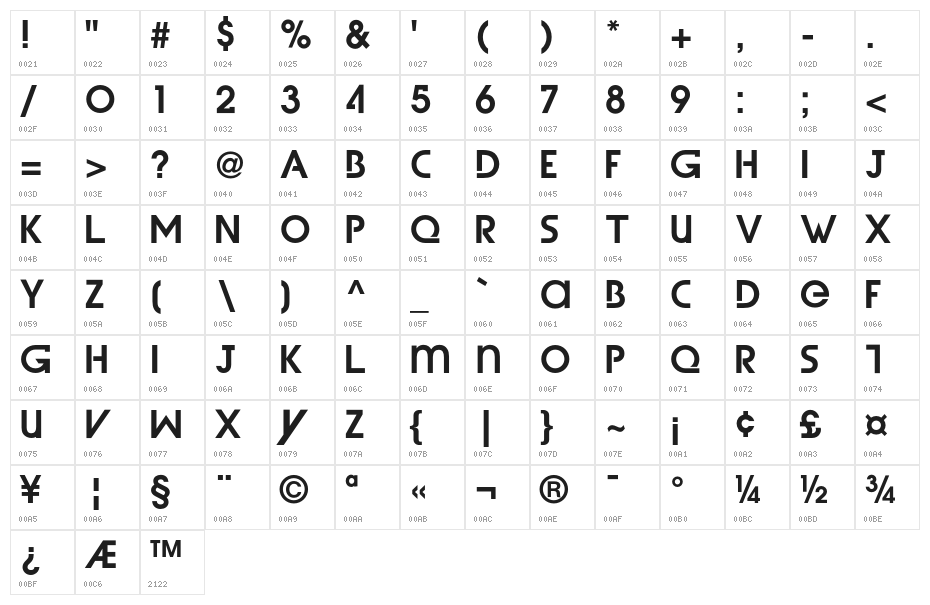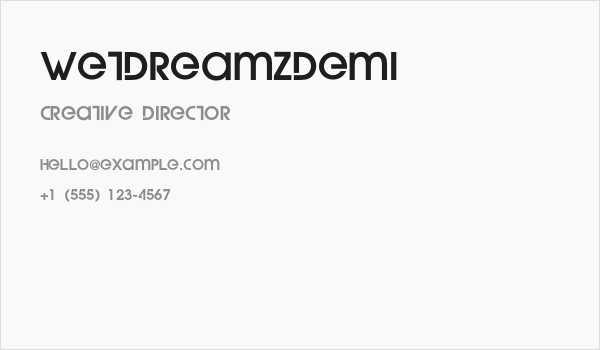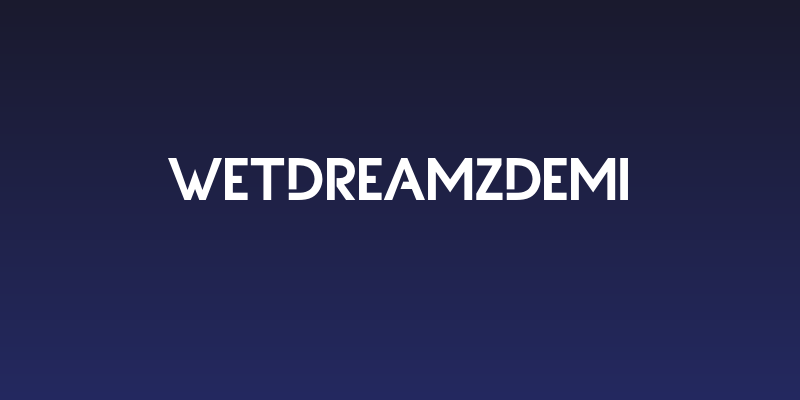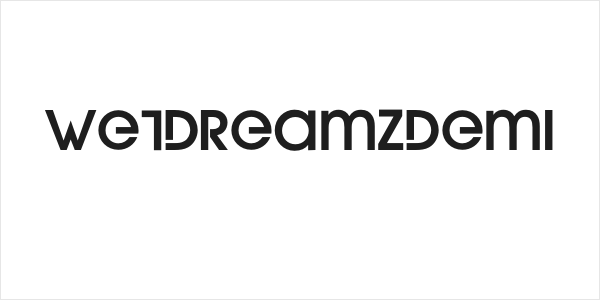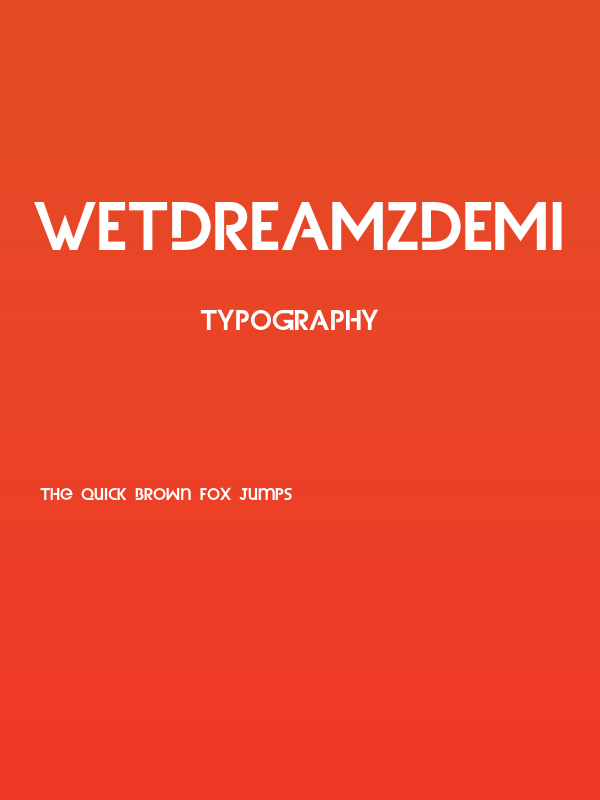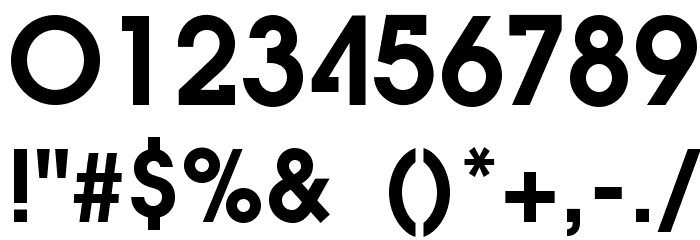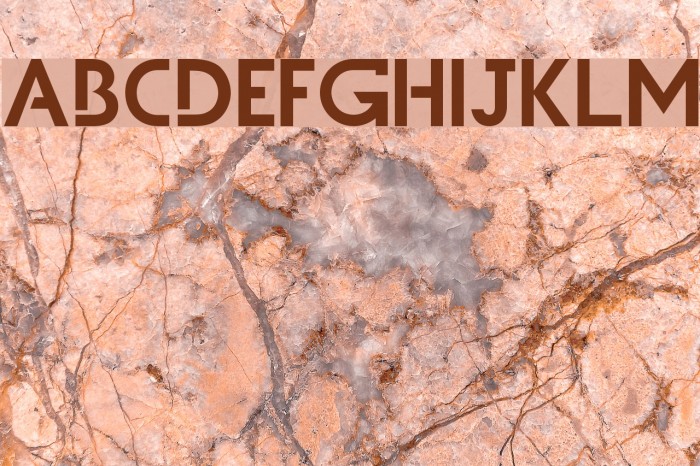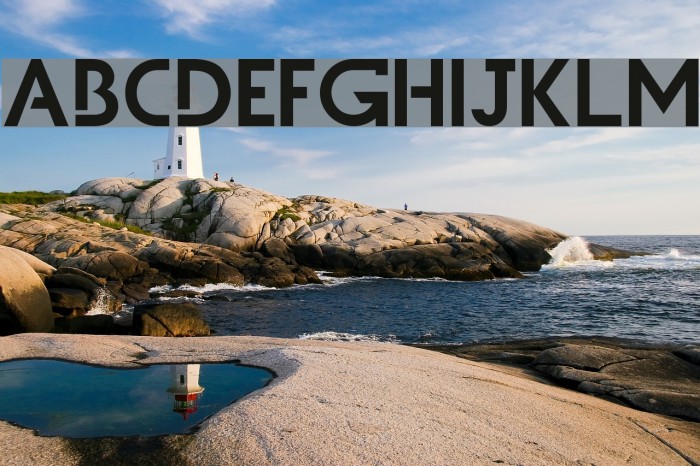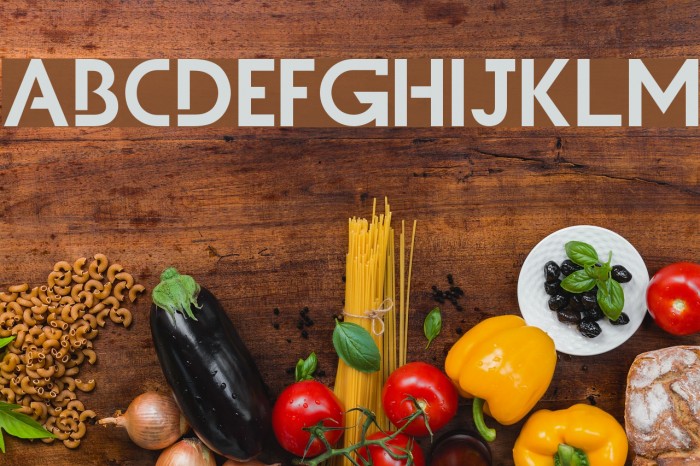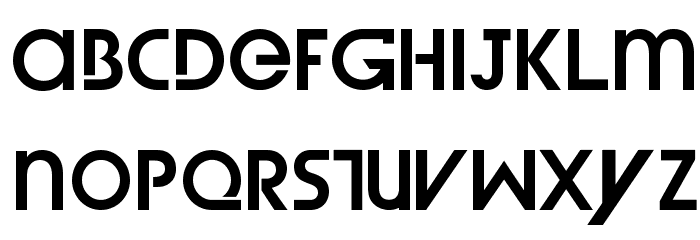
WetDreamzDemi Font
WetDreamzDemi Description
This font features a bold and geometric design with a modern flair. The characters are crafted with sharp angles and clean lines, creating a sense of precision and strength. The uppercase letters exhibit a uniform height, while the lowercase letters maintain a consistent style that complements the uppercase. The numerals are robust and clear, ensuring legibility. Special characters are designed with the same boldness, adding to the cohesive look. The overall aesthetic is striking and contemporary, making it suitable for impactful visual statements.
| Proposed Projects | Ideal for branding, posters, headlines, and any project requiring a strong visual impact. |